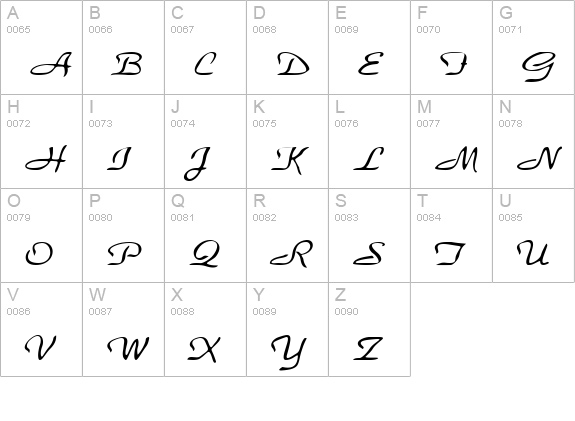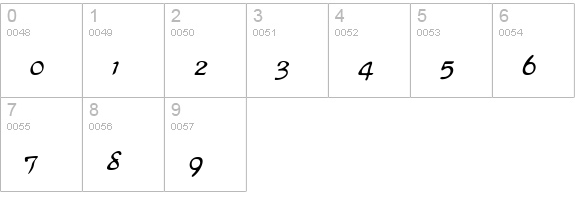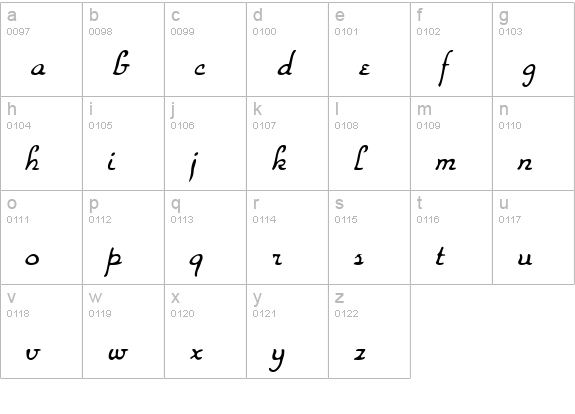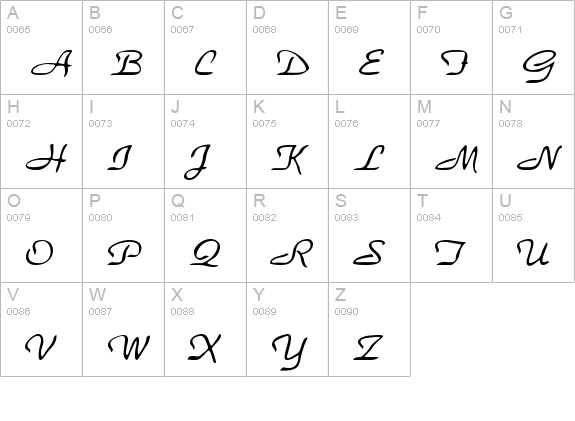
ParkHaven Normal Font Details
ParkHaven Normal is the standard, neutral variant in the ParkHaven typeface family \xE2\x80\x94 well suited to general body text, paragraphs, and standard typographic work.
ParkHaven Normal font is a versatile and stylish typeface that will bring a touch of elegance to any design project. With its clean lines and timeless appeal, this font is perfect for both print and digital applications. Whether you're creating a logo, designing a website, or crafting a beautiful invitation, ParkHaven Normal font will effortlessly elevate your work to new heights. This font offers a perfect balance between sophistication and readability, making it suitable for a wide range of design purposes. Its classic and timeless design ensures that it will never go out of style, allowing you to create stunning designs that will stand the test of time. One of the best things about ParkHaven Normal font is that it is freely available to download at FontsMarket.com. This means that you can easily access this amazing font and use it in all of your design projects without any limitations. Whether you're a professional designer or a hobbyist, having access to high-quality fonts for free is a great advantage. ParkHaven Normal font is a true gem in the world of typography. It combines elegance, versatility, and accessibility in one beautiful package. So why wait? Head over to FontsMarket.com and download ParkHaven Normal font today to add a touch of sophistication to all of your design endeavors.